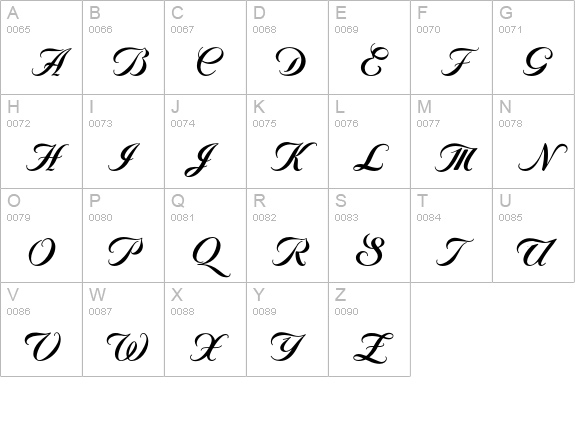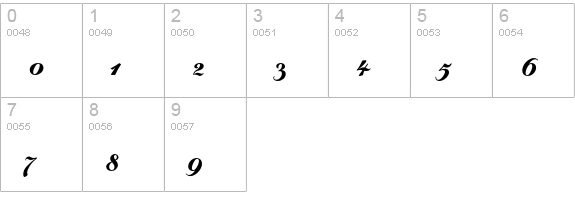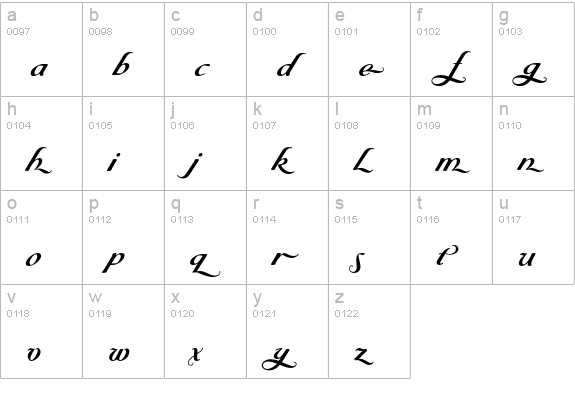
Byron RR Swash Bold is a strong, high-contrast variant in the Byron typeface family \xE2\x80\x94 well suited to headlines, attention-grabbing titles, and strong calls-to-action.
Byron RR Swash Bold font exudes elegance and sophistication with its sleek and refined design. The bold strokes and swashes make a powerful statement, perfect for adding a touch of flair to your projects. Whether you're working on a brand identity, invitations, or headlines, this font will captivate your audience with its striking presence. And the best part? Byron RR Swash Bold font is available for free download at FontsMarket.com. Embrace the beauty and versatility of this font without any cost, and elevate your designs to new heights. Don't miss out on this opportunity to enhance your creative work with a font that commands attention and leaves a lasting impression.